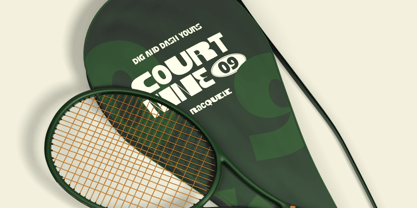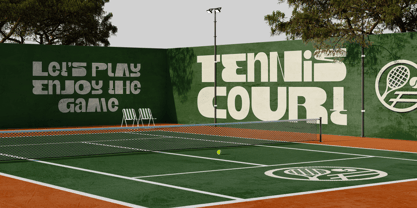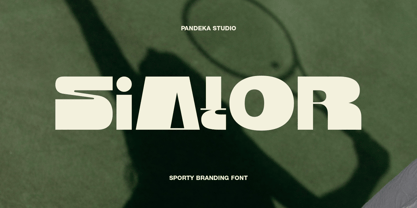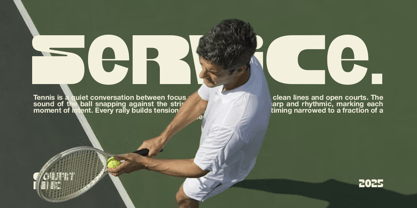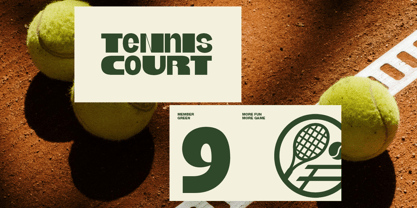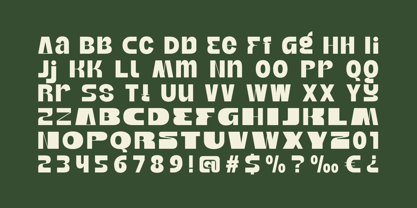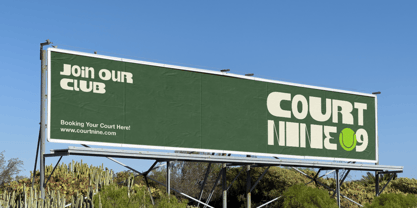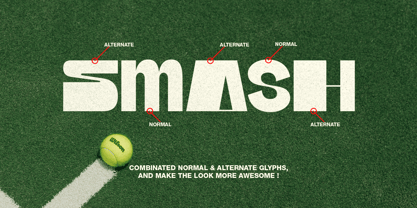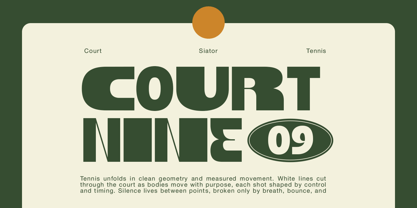
Siator
Die Schriftfamilie Siator wurde von Sagara Nararya entworfen und von Pandeka Studio veröffentlicht. Siator enthält 2 Stile und Familienpaketoptionen. Mehr über diese Familie
Siator is a modern sporty branding font designed to deliver strength, movement, and confidence. Featuring clean geometric forms with sharp details, Siator comes with 2 styles: Regular and Oblique, allowing dynamic typographic compositions that feel fast, bold, and energetic. With 21+ alternates, this font offers flexibility for creating distinctive logos and custom lettering while maintaining a consistent athletic aesthetic.
Perfect for sports branding, tennis clubs, activewear logos, fitness campaigns, event posters, social media graphics, and modern signage, Siator brings a professional and contemporary sports vibe. It’s ideal for designers who want to create bold, competitive, and high-impact visuals across both digital and print media.
• 2 Style: Regular and Oblique
• Full Character Set: Uppercase, lowercase, numbers, symbols, and punctuation
• 21+ Stylistic Alternates